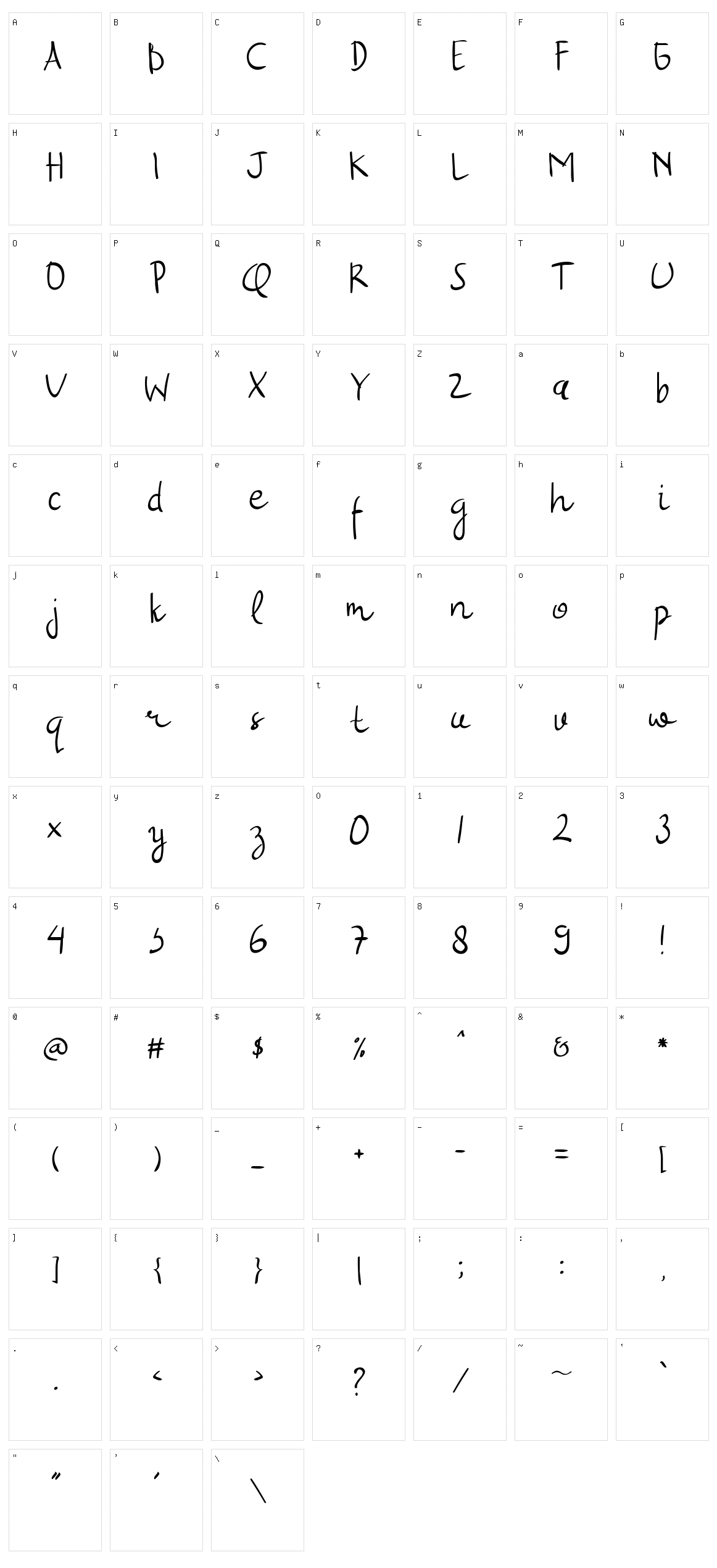
The free font Moments is carefully designed by Graph Arts, showcasing a thoughtful balance of creativity and usability and falls under the Script font style. When you download the ZIP file, it contains only 25.39 KB of font files, making it lightweight and quick to download. Please review the license details below to understand permitted usage and distribution rights. If license information is not available, we recommend using this font for personal projects only or contacting the author directly for commercial usage permissions.